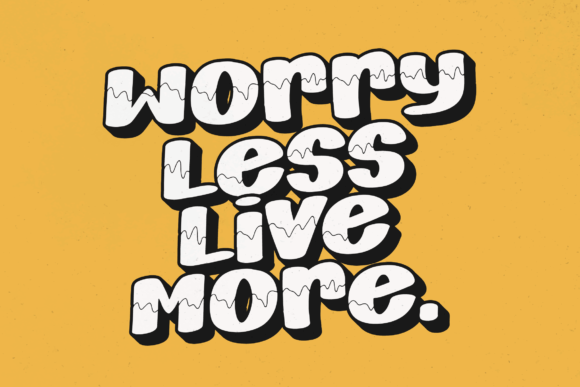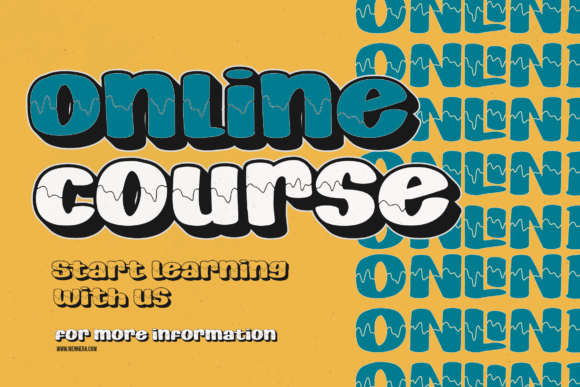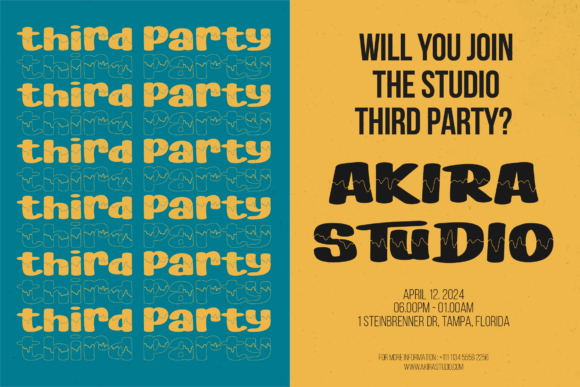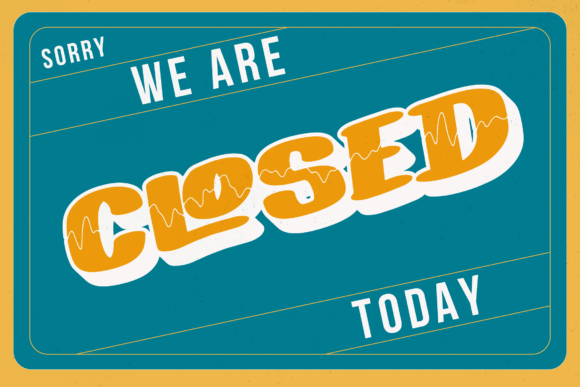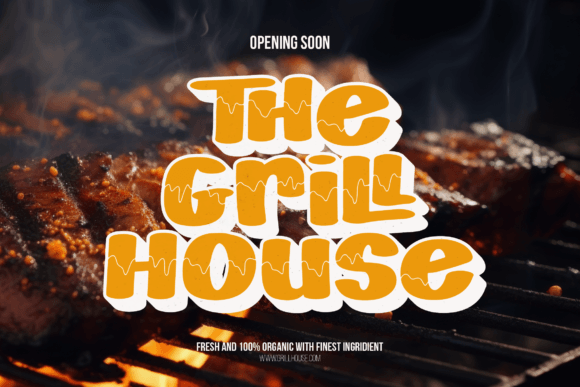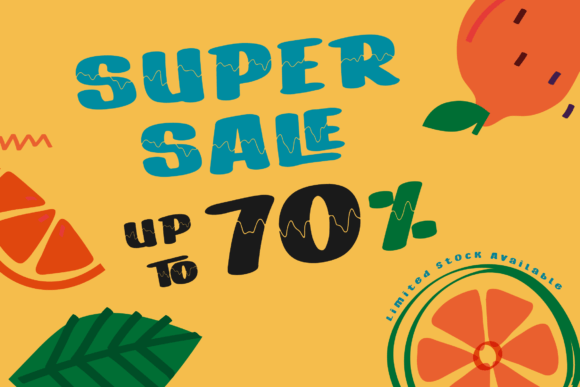
Dream Bold Font: The Ultimate Display Font for Eye-Catching Designs
Are you looking for a font that can make your designs stand out from the crowd? Look no further than Dream Bold Font! This strong, eye-catching display font is perfect for headlines, posters, and any other design project that needs a bold statement. With its thick letters and modern style, Dream Bold Font is sure to add a fun touch to any design.
What is Dream Bold Font?
Dream Bold Font is a type of display font that is designed to grab attention. Its thick, bold letters are perfect for making a statement, and its modern style ensures that your designs look fresh and up-to-date. Whether you’re a designer, crafters, or simply someone who loves to create, Dream Bold Font is a great addition to your font collection.
Key Features of Dream Bold Font
• Strong and Eye-Catching: Dream Bold Font has thick letters that stand out, making it perfect for headlines and posters.
• Modern Style: The font has a modern style that adds a fun touch to any design.
• Versatile: Dream Bold Font can be used for a variety of design projects, from digital designs to print materials.
• Easy to Read: Despite its bold style, Dream Bold Font is easy to read, making it perfect for designs that need to communicate a message.
Uses of Dream Bold Font
Dream Bold Font is perfect for a variety of design projects, including:
• Headlines and Posters: The font’s bold style makes it perfect for headlines and posters that need to grab attention.
• Digital Designs: Dream Bold Font can be used for digital designs, such as social media graphics, website headers, and more.
• Print Materials: The font can also be used for print materials, such as brochures, flyers, and business cards.
• Logos and Branding: Dream Bold Font can be used to create bold and eye-catching logos and branding materials.
Tips for Using Dream Bold Font
Here are some tips for using Dream Bold Font effectively:
• Use it Sparingly: While Dream Bold Font is eye-catching, it can be overwhelming if used too much. Use it sparingly to make a statement.
• Pair it with Other Fonts: Pair Dream Bold Font with other fonts to create contrast and add visual interest to your designs.
• Experiment with Colors: Experiment with different colors to find the perfect combination that makes your design stand out.
Dream Bold Font is a strong, eye-catching display font that is perfect for designers and crafters who want to add a bold touch to their designs. With its thick letters and modern style, it’s perfect for headlines, posters, and any other design project that needs a statement. Whether you’re a seasoned designer or just starting out, Dream Bold Font is a great addition to your font collection.